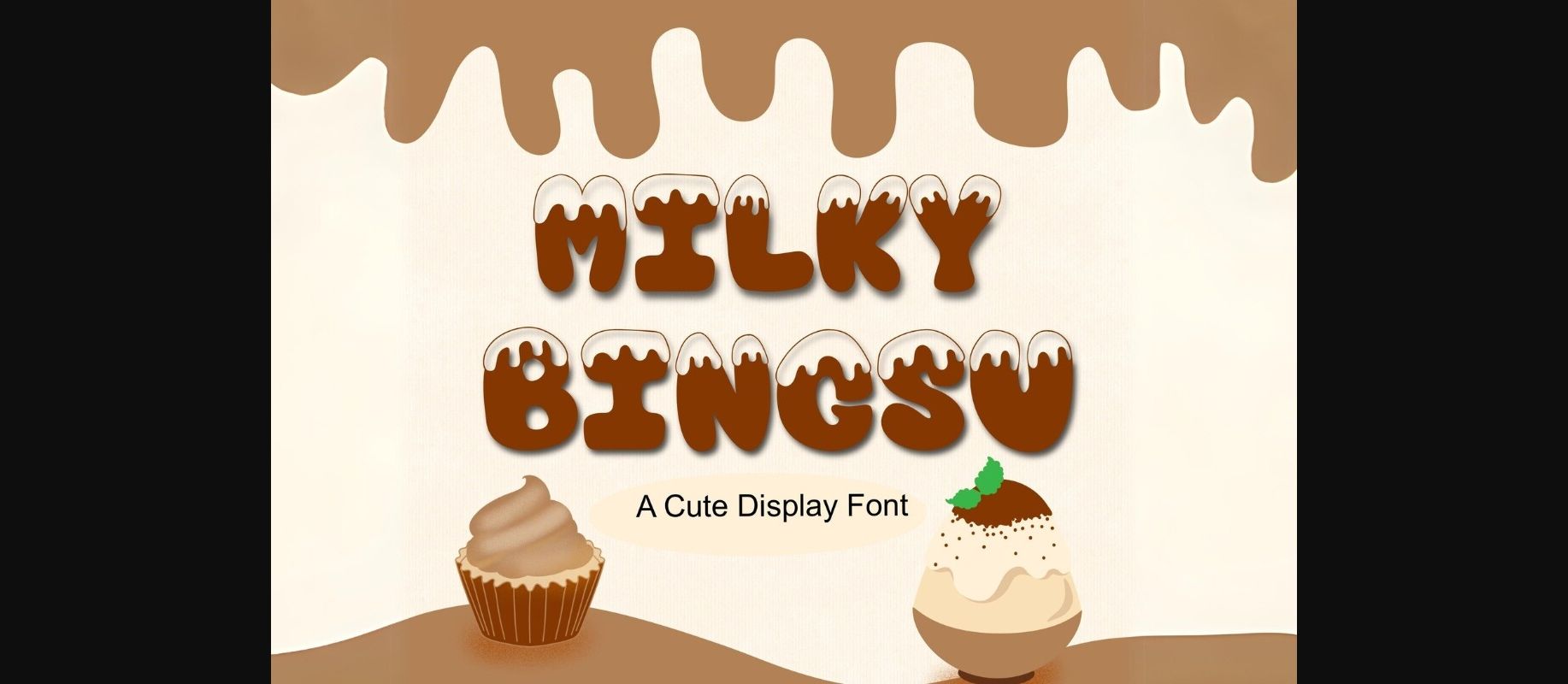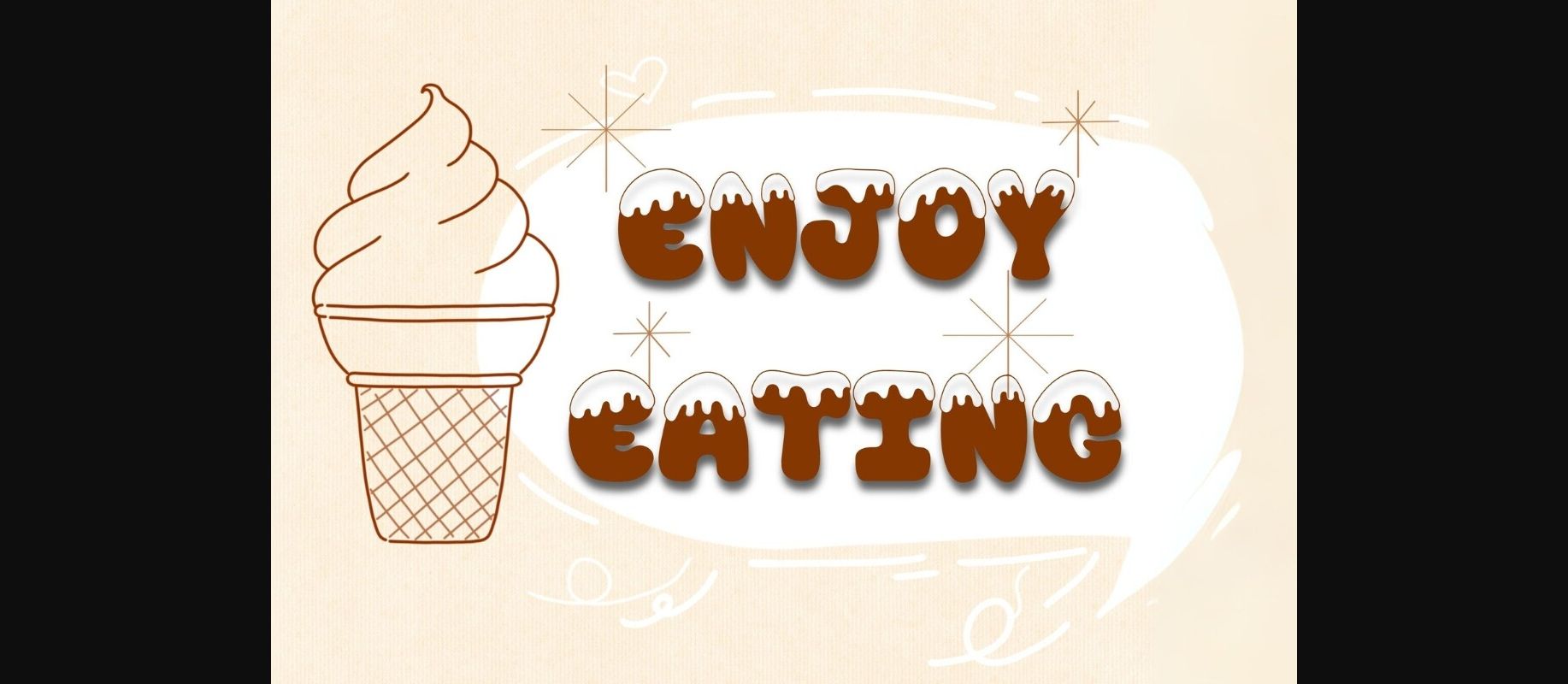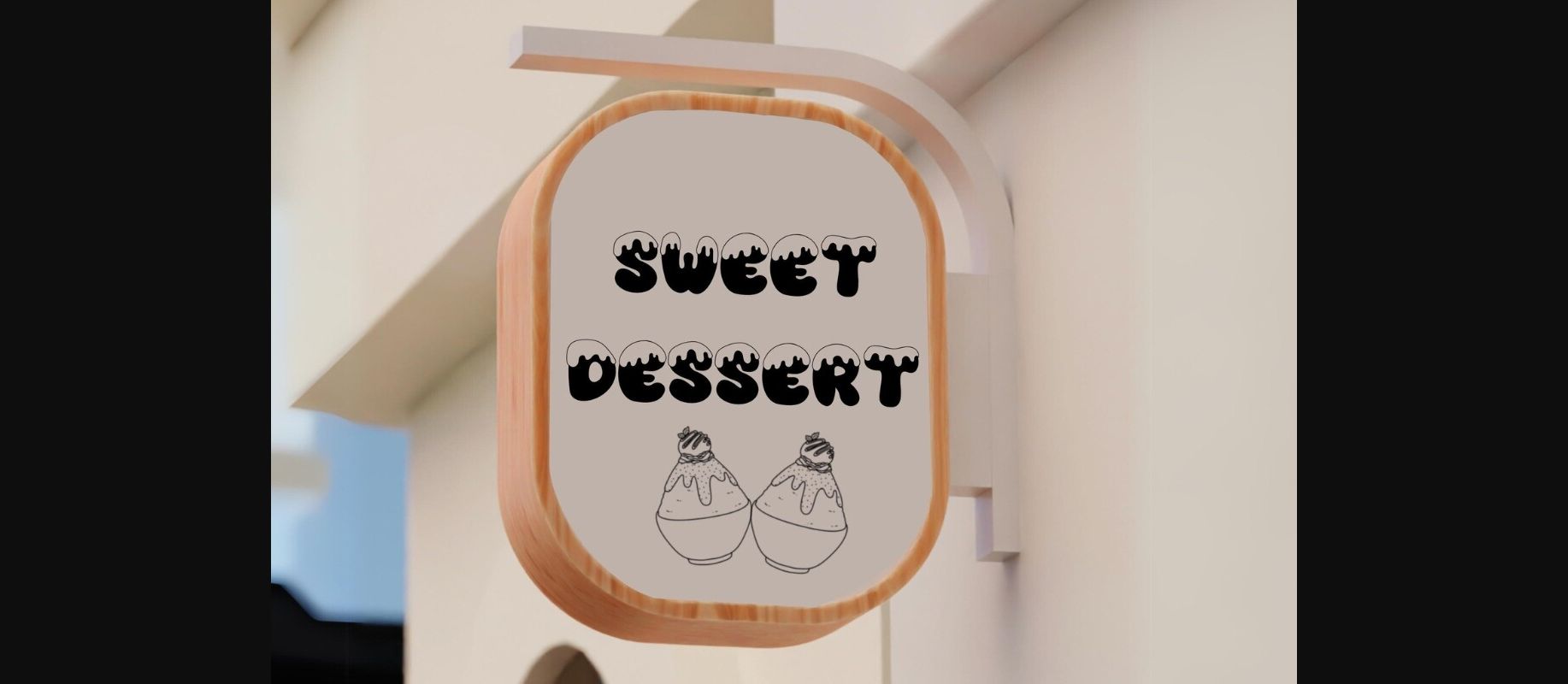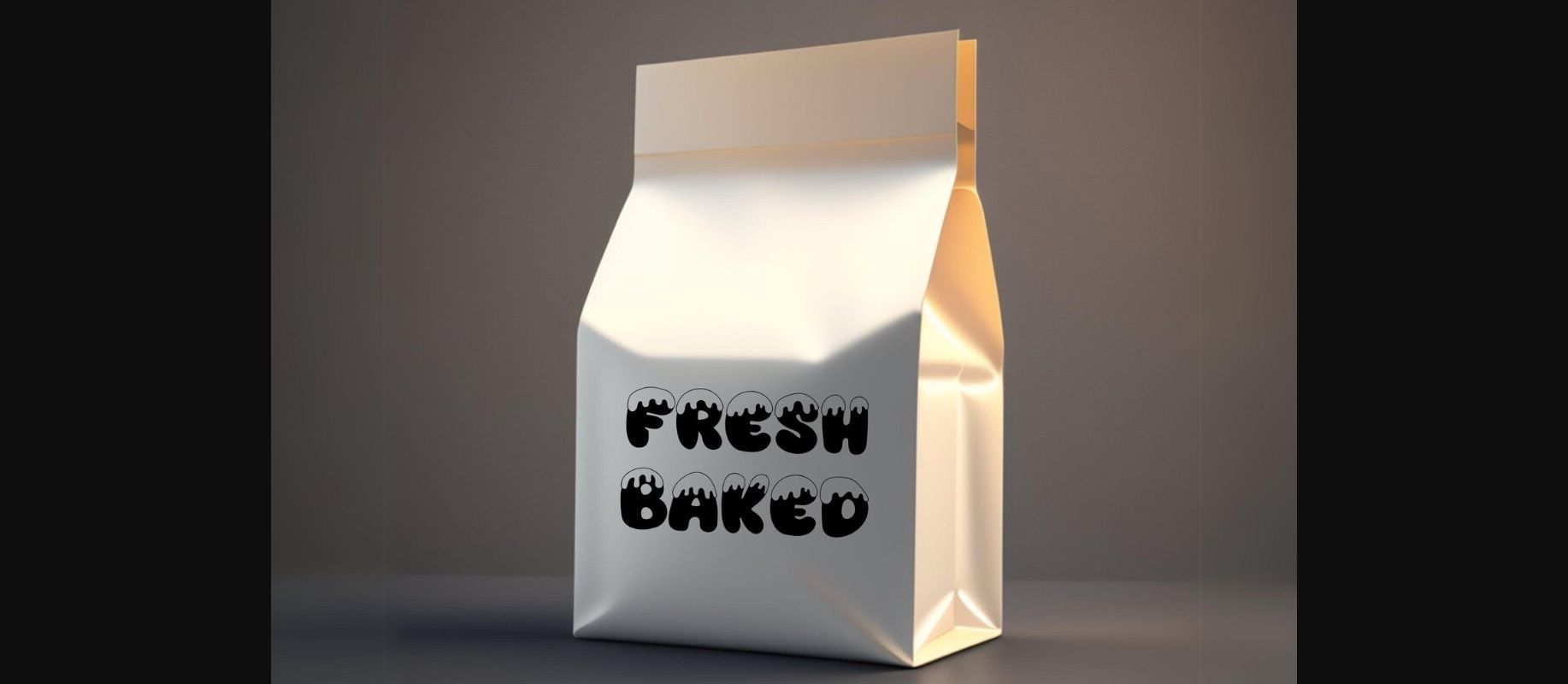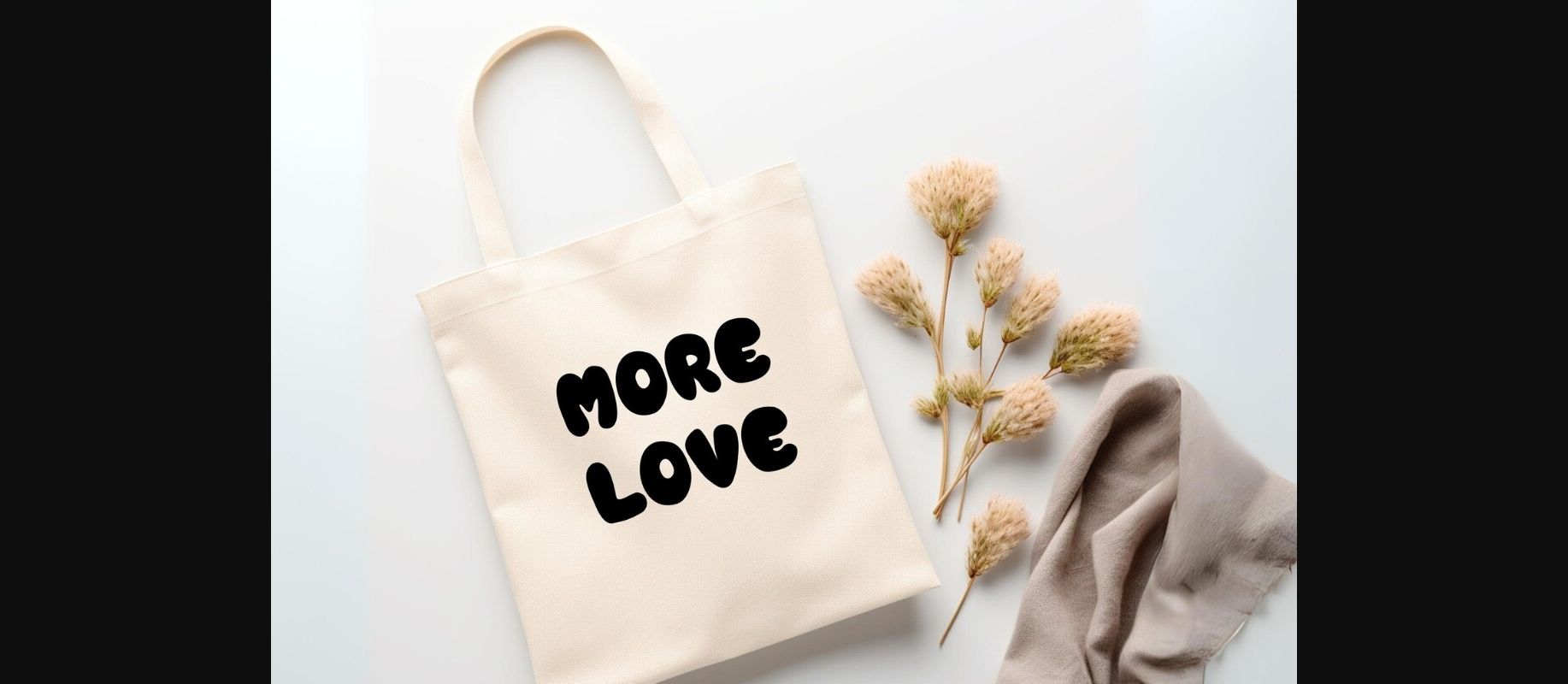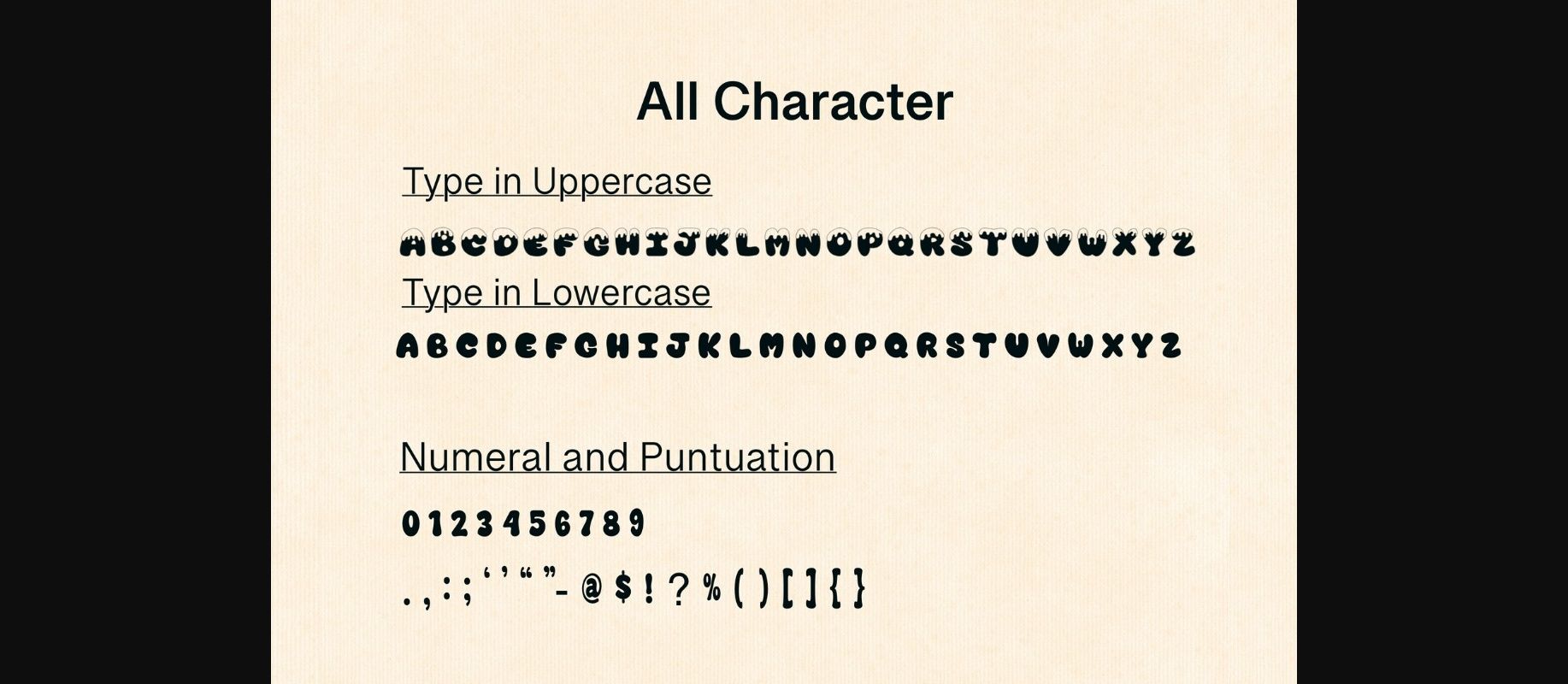
Milky Bingsu Font
About Milky Bingsu Font
Milky Bingsu Font is a cute bubbly font that uses bold bubble letters adorned with slime on top to add a lovely touch to any design idea you can think of. Masterfully designed to become a true favorite, this font has the potential to bring each of your creative ideas to the highest level!